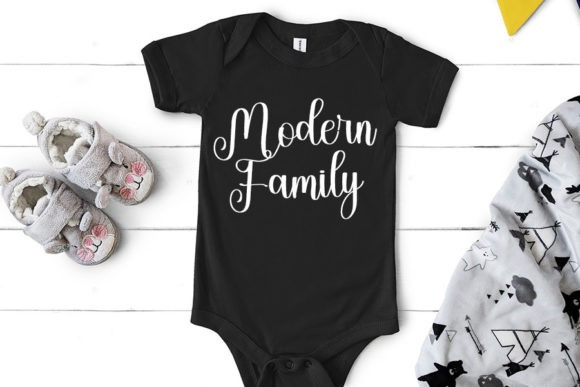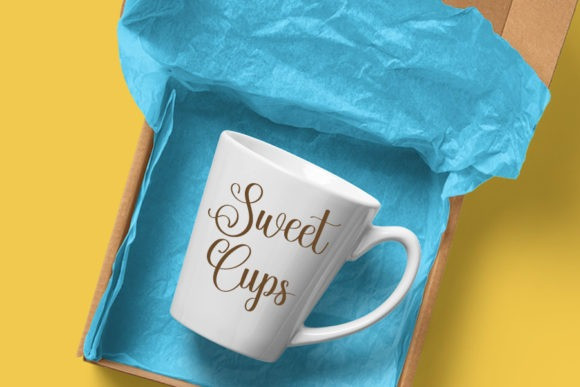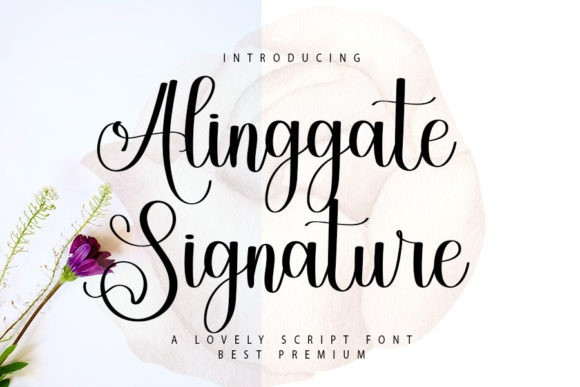
Alinggate Signature Font
Alinggate Signature Font is a gorgeous and stylish handwritten font. It reads as confident and dynamic and can add tons of nostalgic character to your designs. This font is PUA encoded which means you can access all of the amazing glyphs and ligatures with ease!